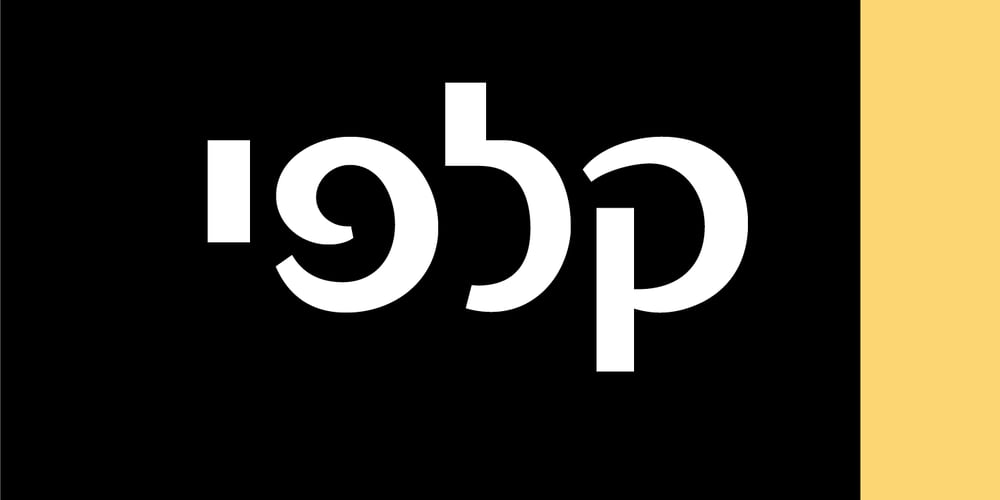
Kaffe Shachor MF
Kaffe Shachor MF font
Kaffe Shachor MF Font Family was designed by Eliyahu Fried and published by Masterfont. Kaffe Shachor MF contains 1 styles and family package options. The beauty of rounded san serif font is ideal for packaging, logos and advrtising.